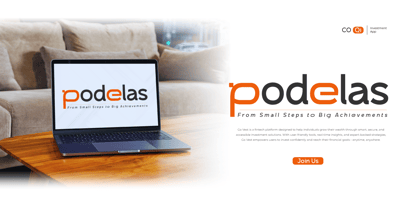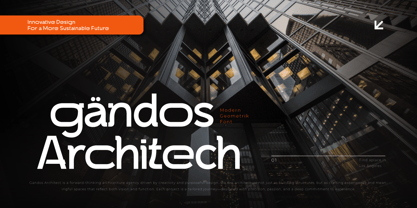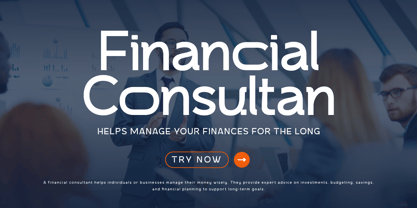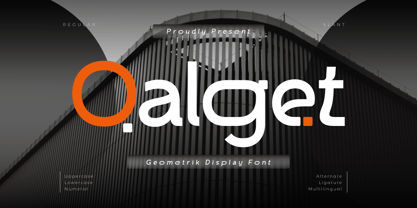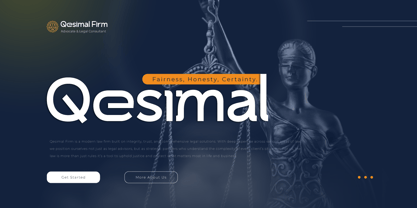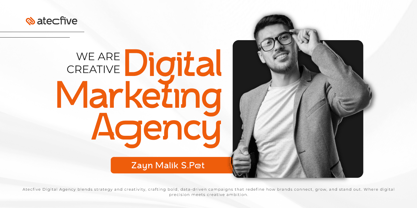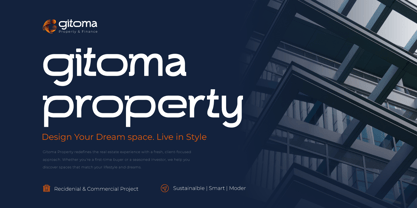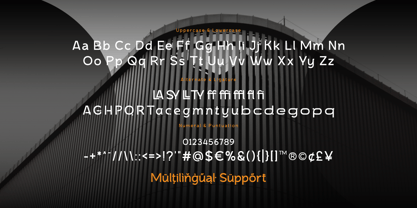
Qalget is a sleek and minimalist geometric logo font designed to deliver clarity, balance, and modern style in every letterform. Built with precision and symmetry, Qalget features clean lines and strong shapes—making it the ideal choice for branding, tech startups, product packaging, fashion labels, or modern editorial layouts.
This font offers a harmonious blend of simplicity and sophistication, allowing your brand to appear both professional and contemporary. Each character is carefully designed to ensure legibility while maintaining a unique, architectural identity—making Qalget especially powerful in logo applications and large headline use.
If you're looking to create a lasting visual impression with a smart, geometric aesthetic, Qalget is the perfect typeface to give your brand a bold, timeless voice.